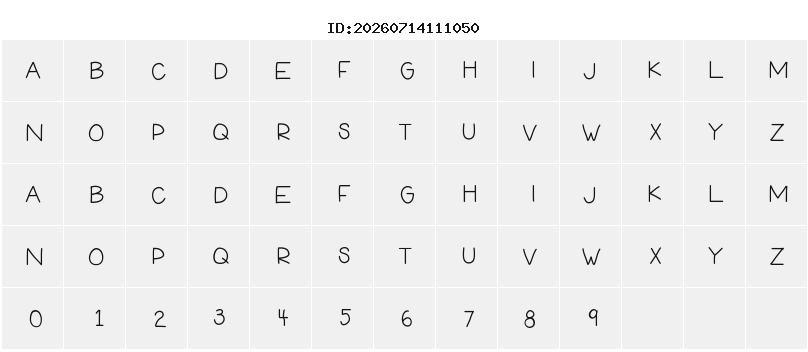
• Font Name: HelloEngineer
HelloEngineer.ttf is a modern, elegant sans-serif font designed for ultimate readability and visual harmony. Perfect for branding, headlines, web design, and print materials.